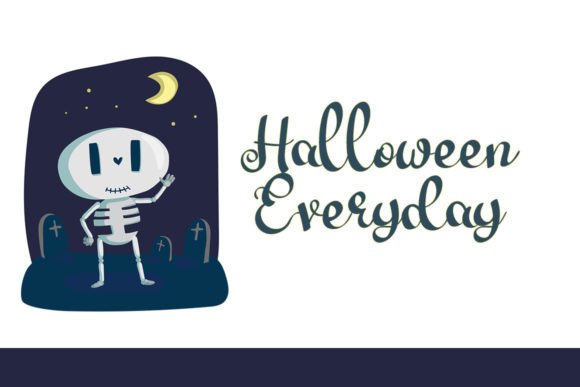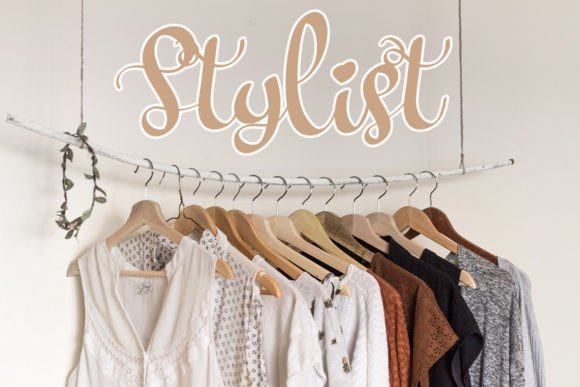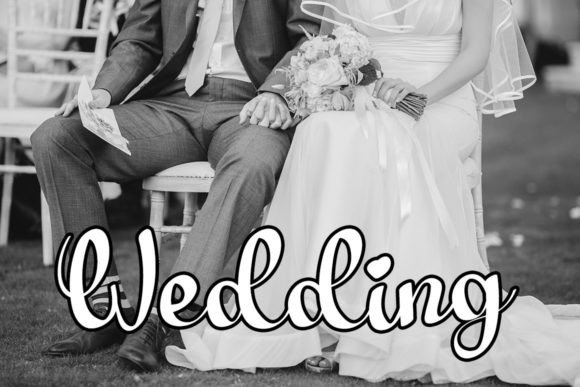
Introduction to Beauty September Font
Beauty September is a beautiful and sweet font.
It is fresh, clean, and elegant This font will look amazing on a variety of projects such as invitations, cards, social media, bags, clothing, web design, flyers and more.